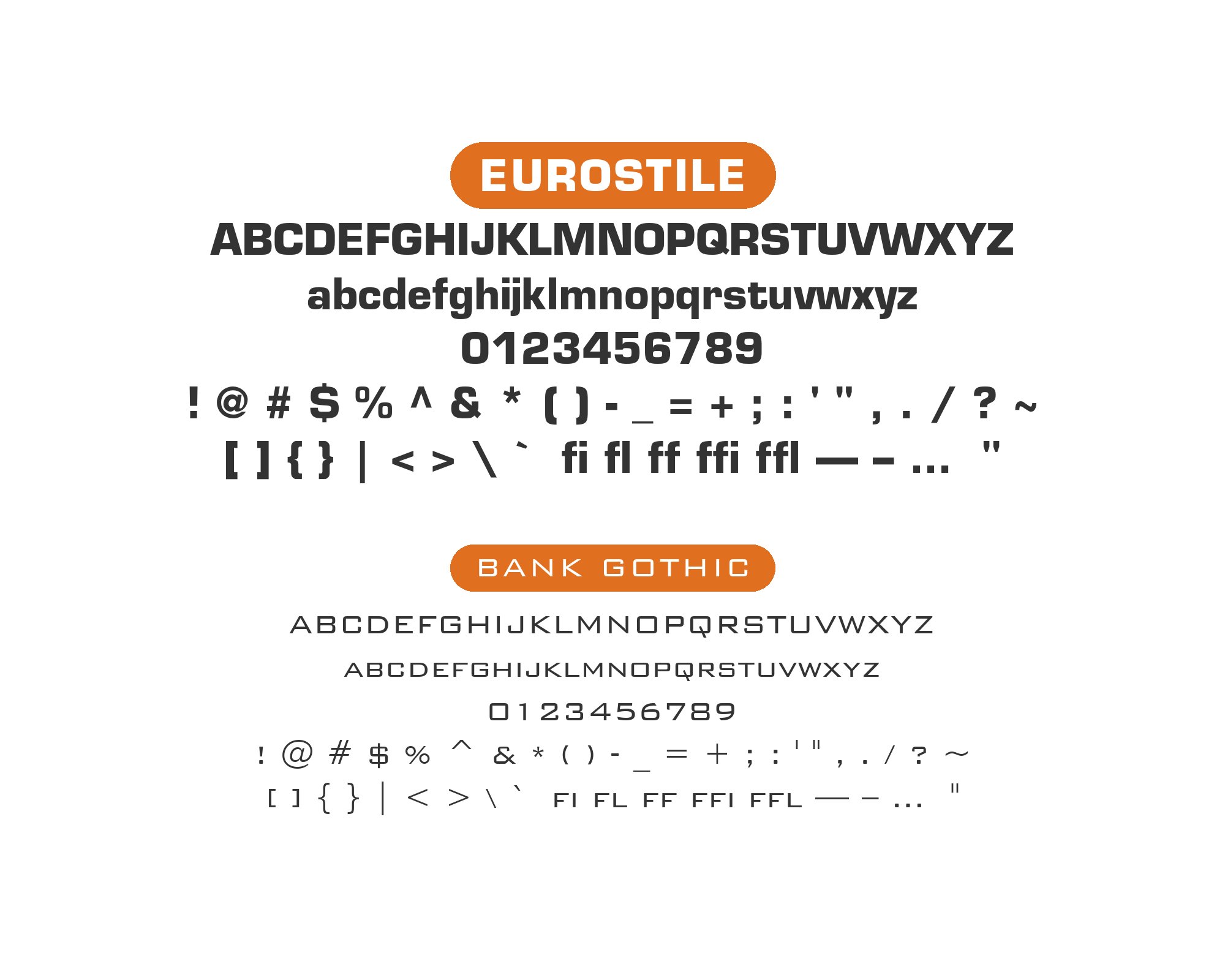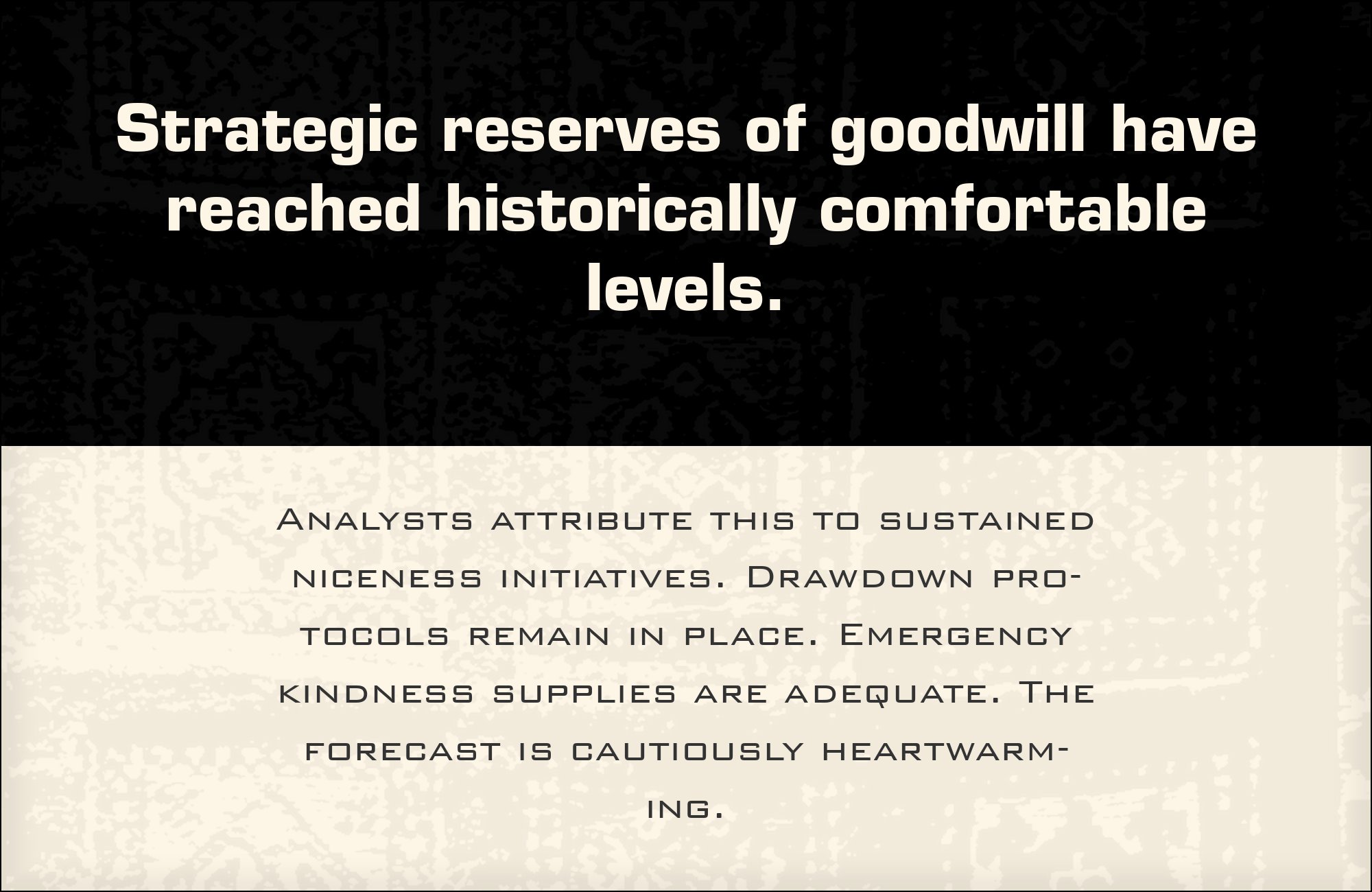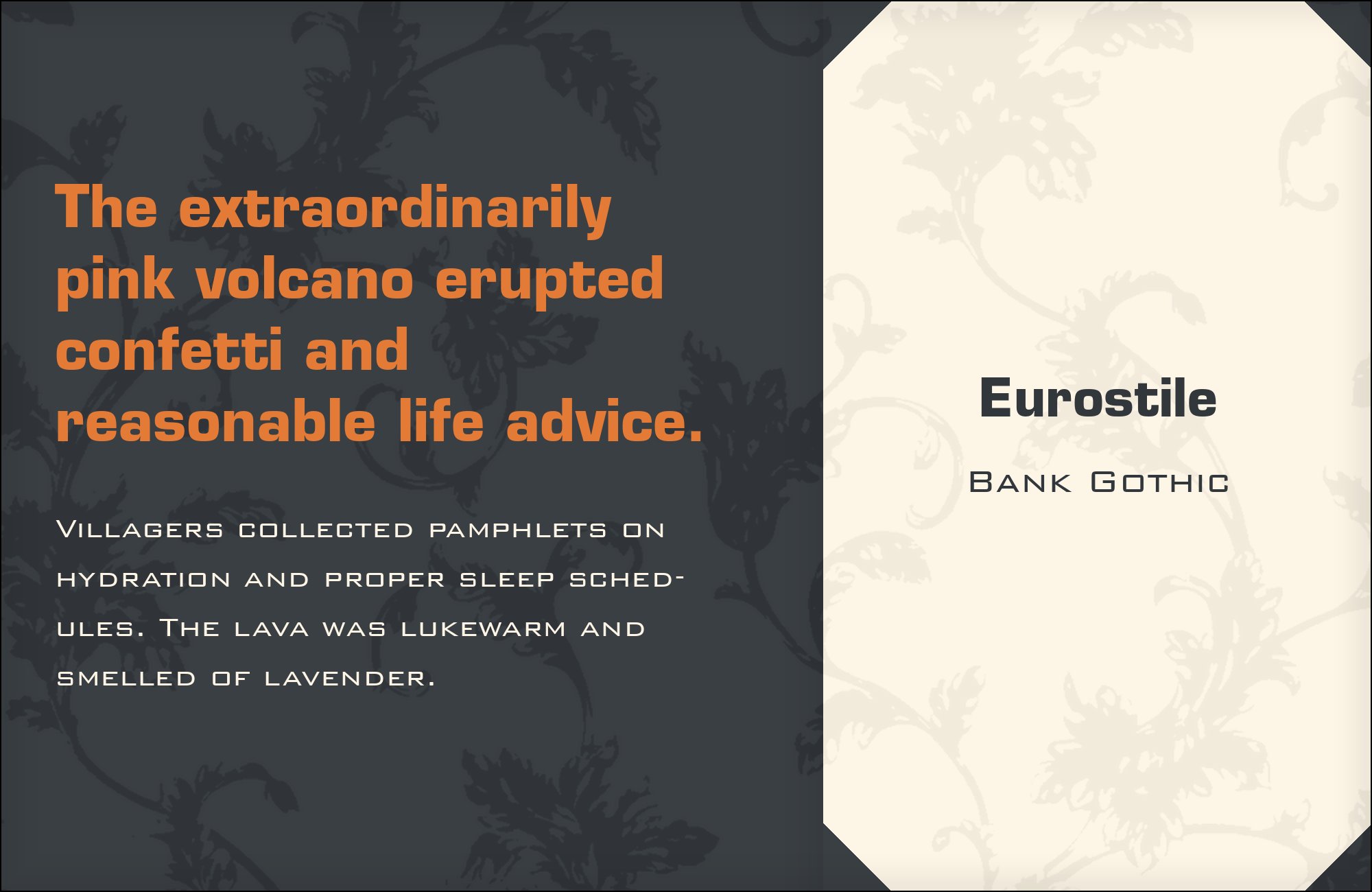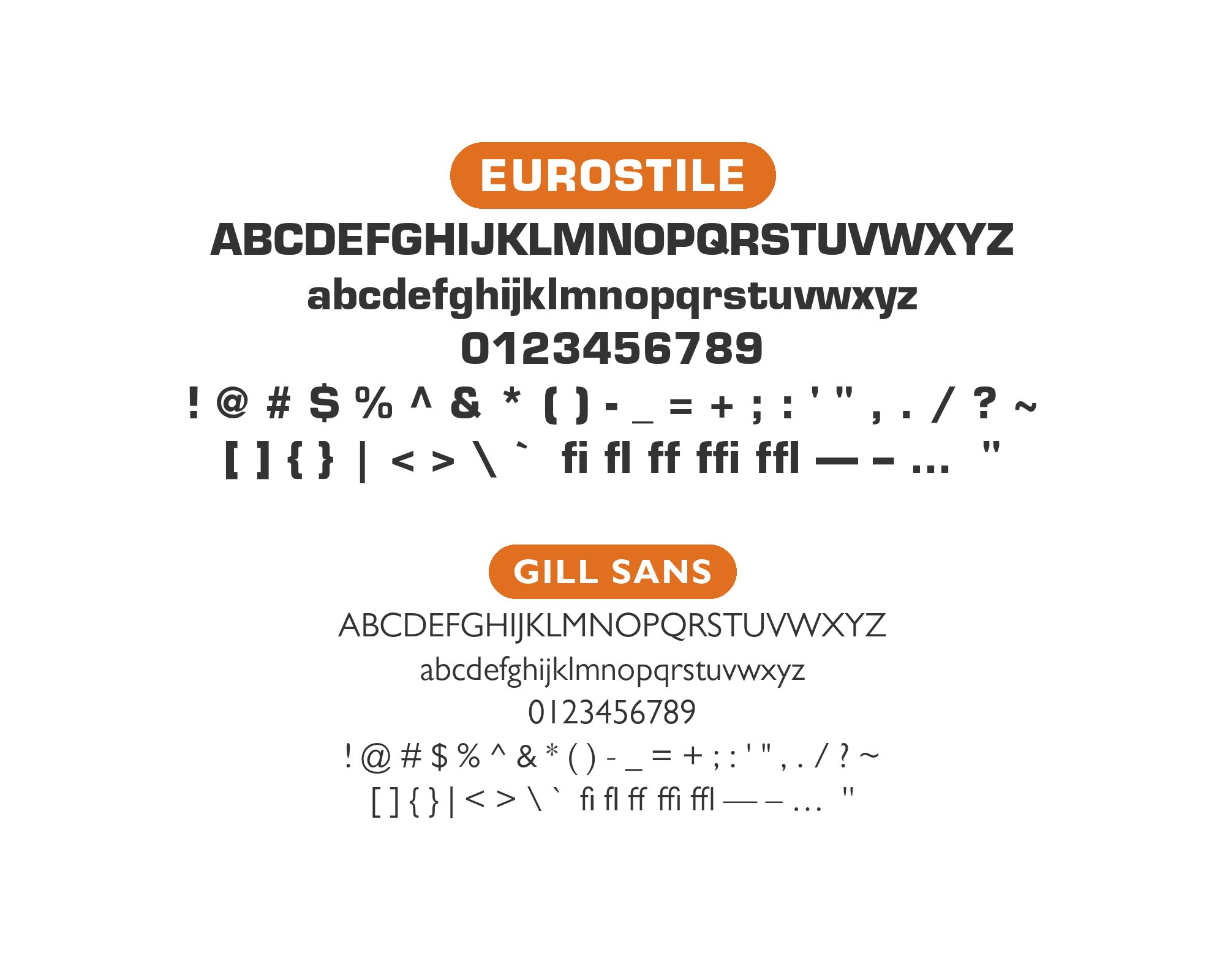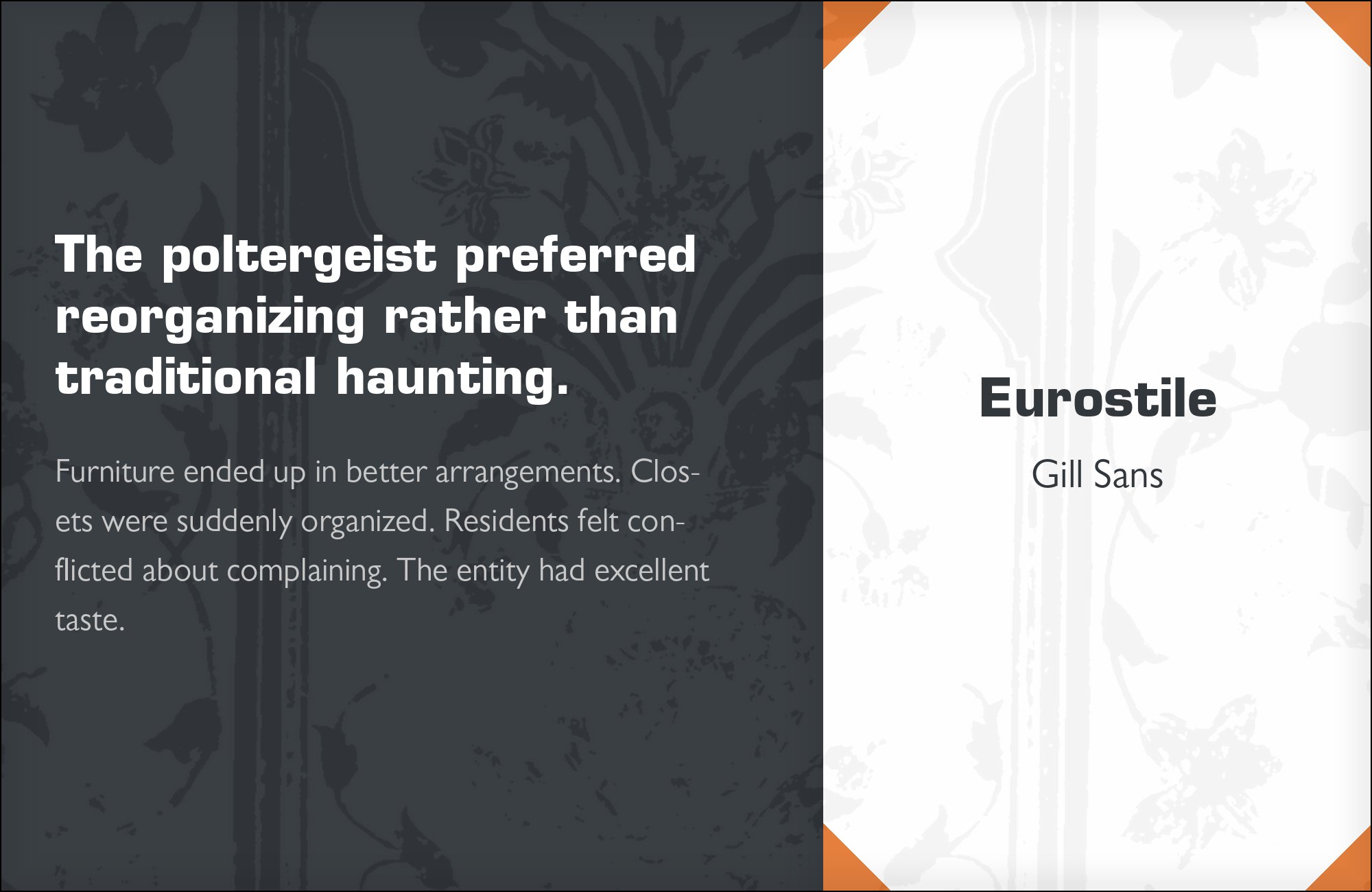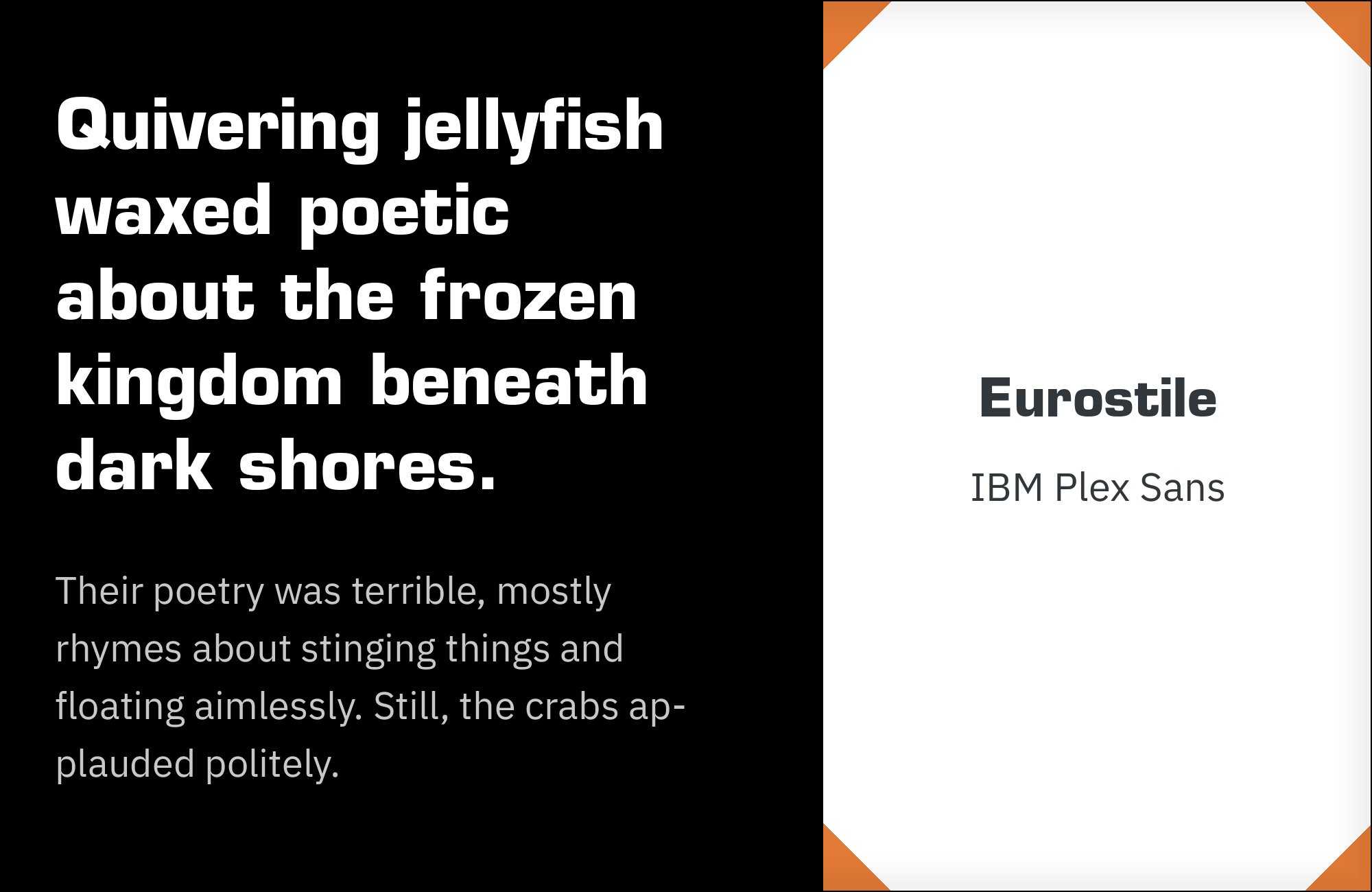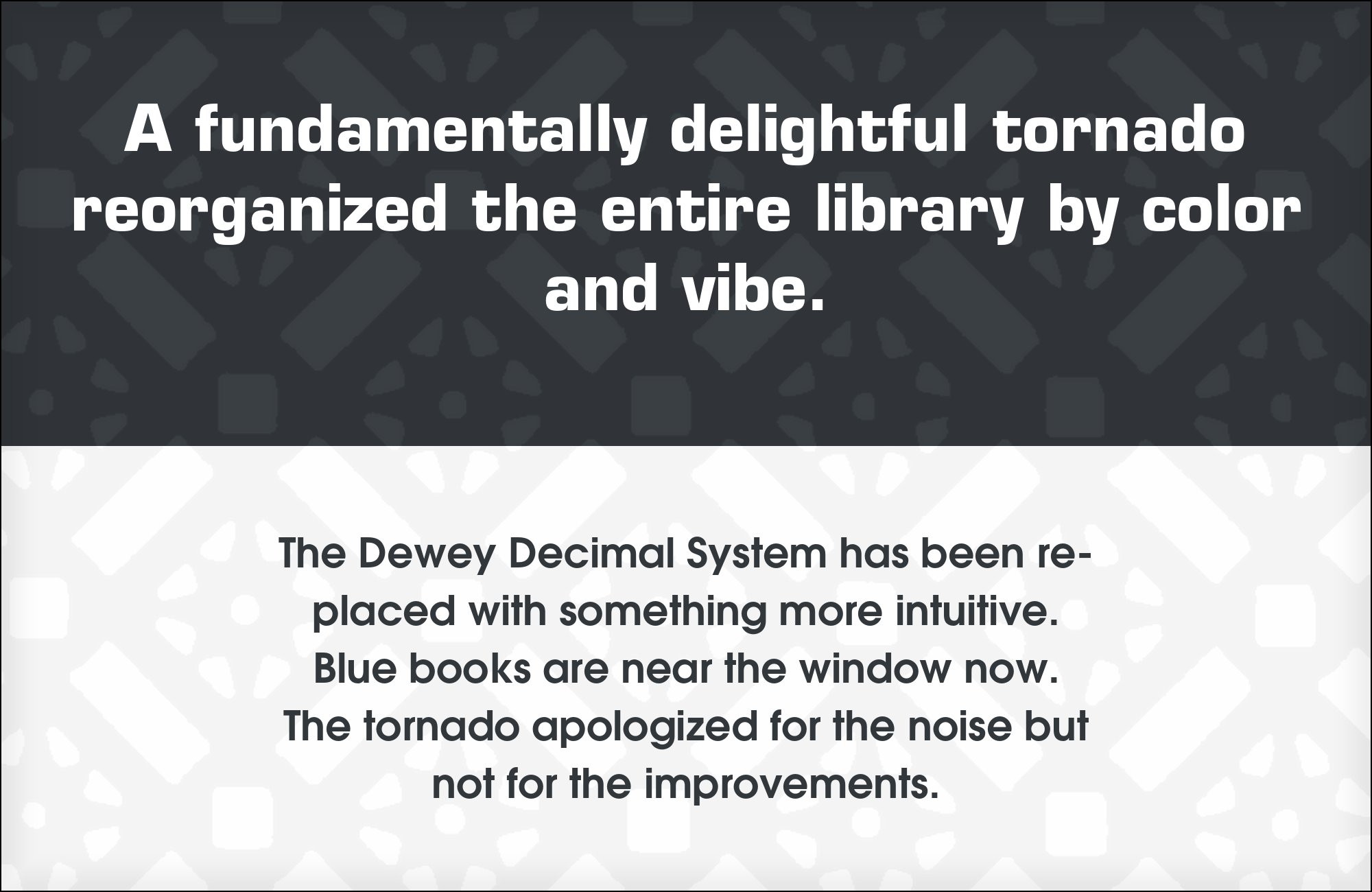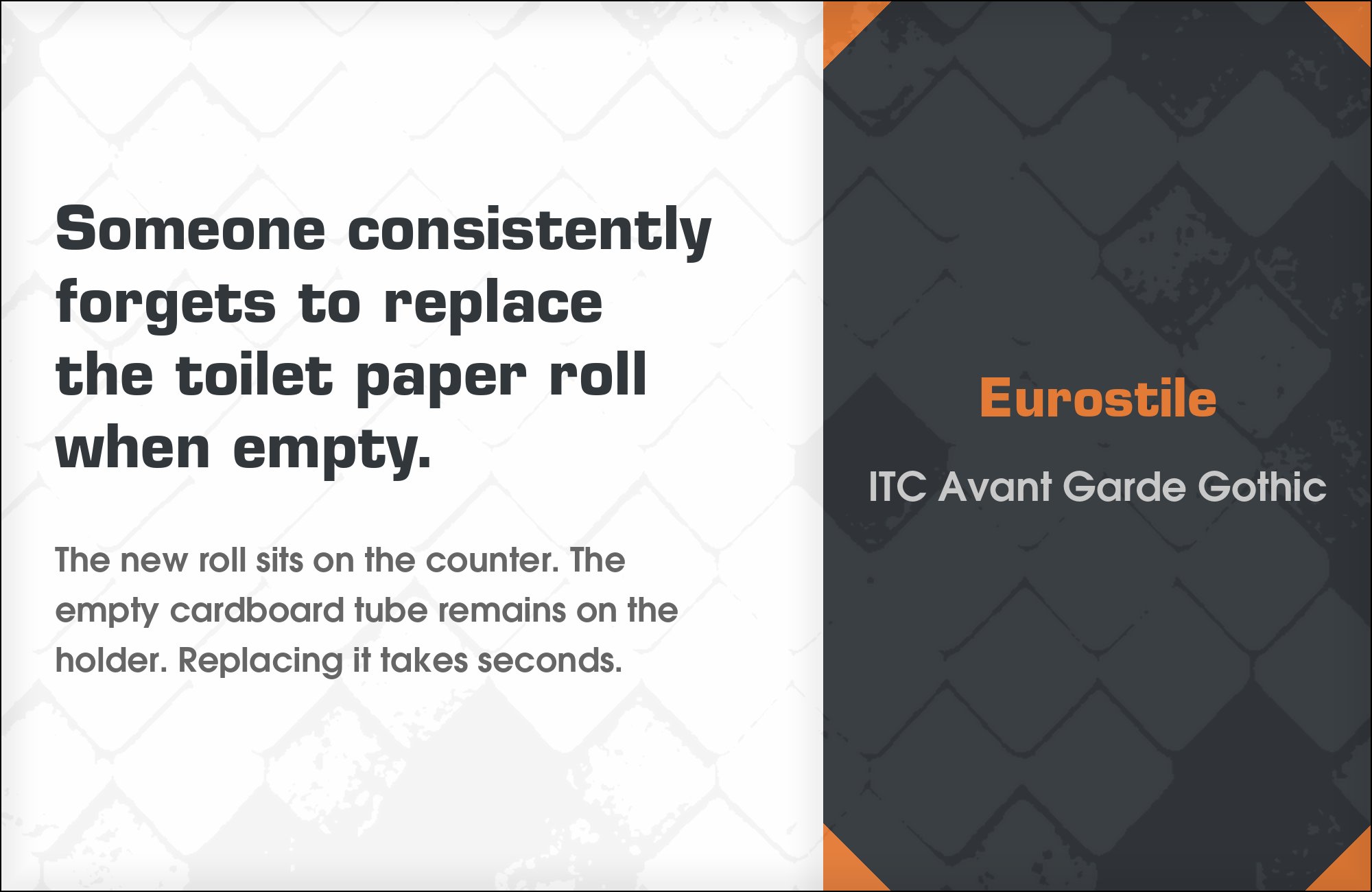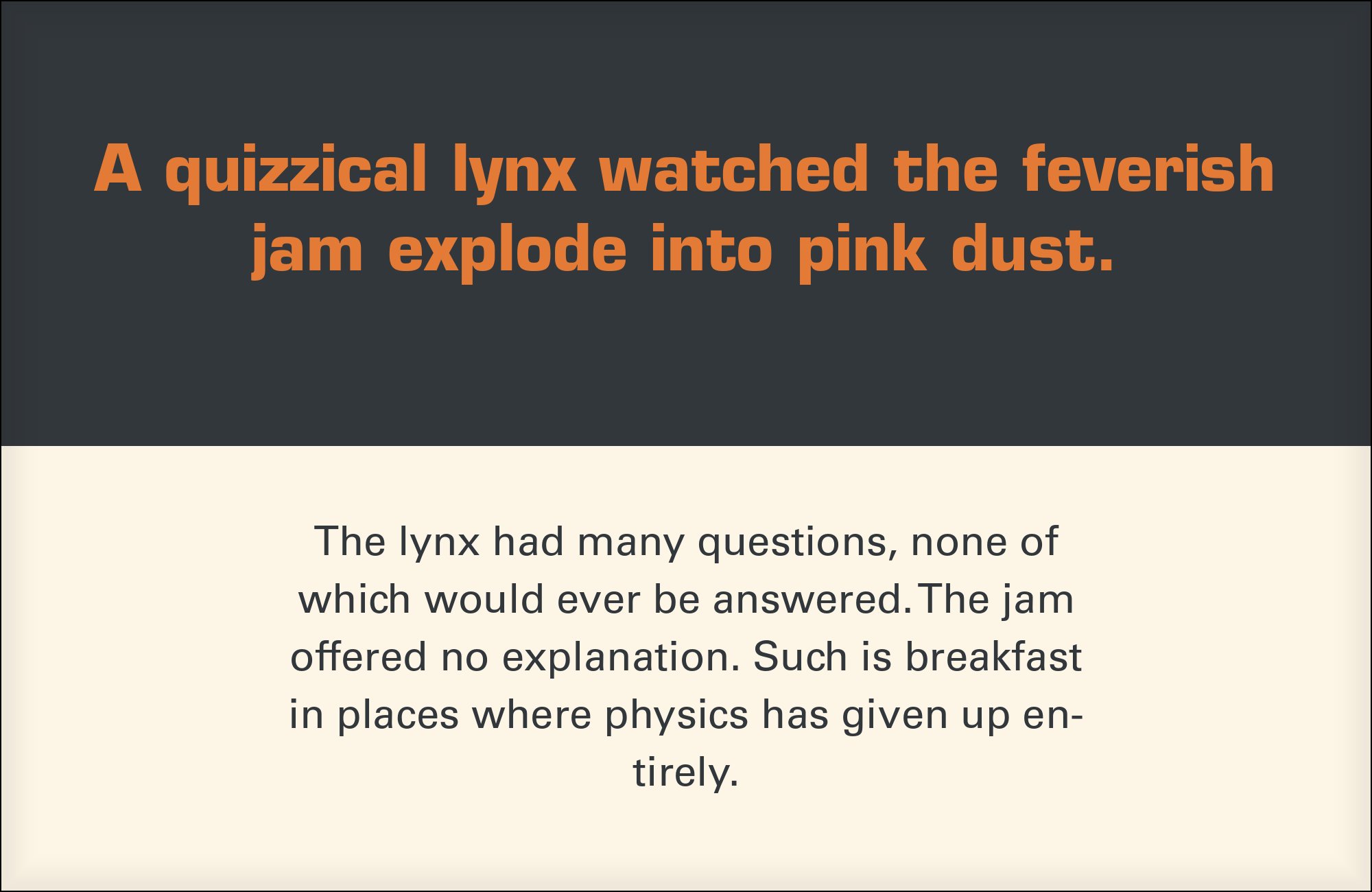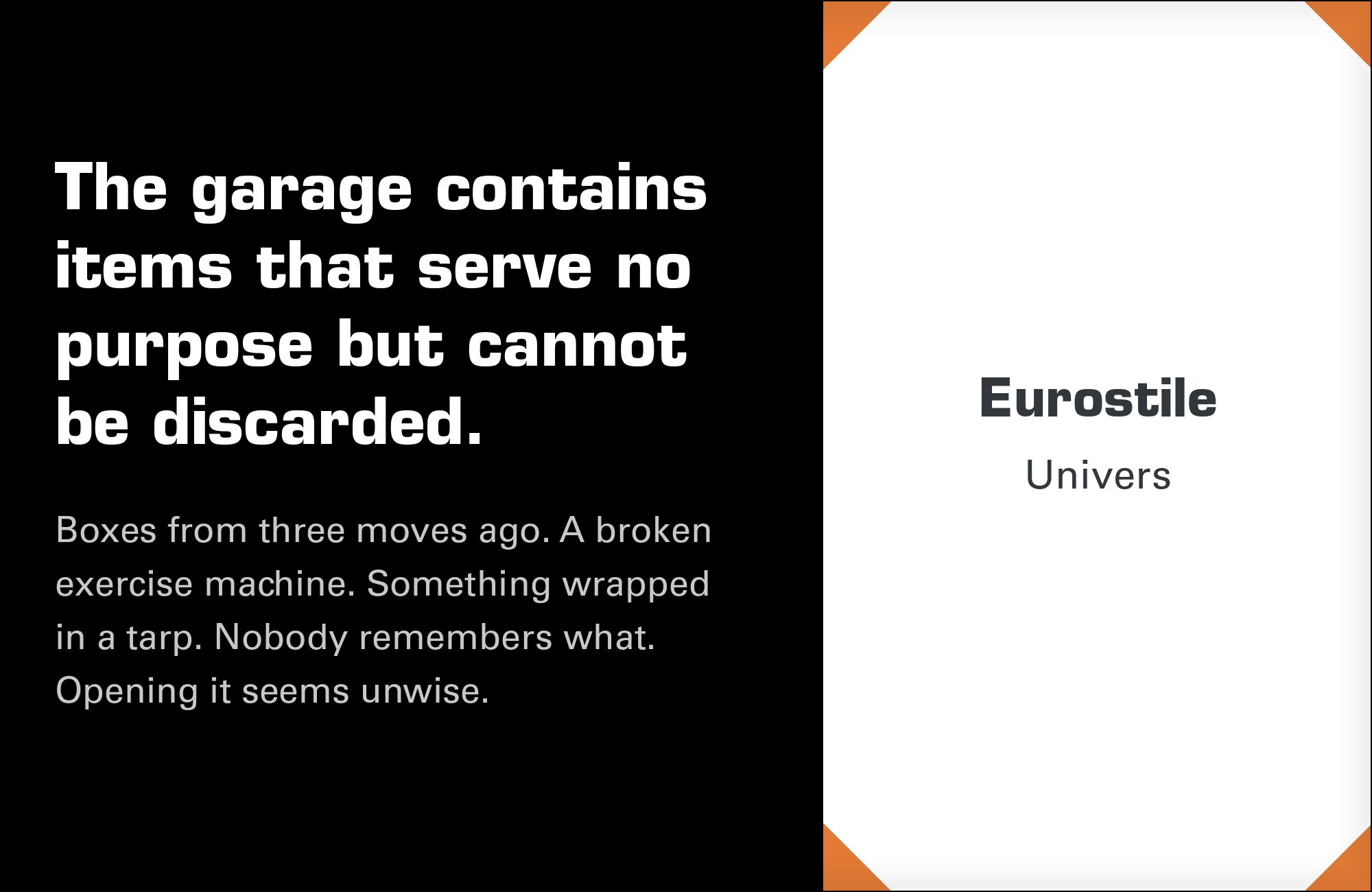
Eurostile pairs great with Univers, Helvetica and Windsor. All 8 pairings are shown below in real rendered specimens, with the reason each one works.
What fonts go with Eurostile? 8 pairings are shown below, each with a reason it works.
Eurostile is a working typeface, not a novelty. These eight pairings give its squared geometry different roles, from a bold headline to a small accent. Use the examples as starting points and judge each combination in your own layout.
1. Univers
Univers is a neutral, rationally-numbered grotesque with almost no personality of its own, so it disappears into body copy and captions while Eurostile’s loud, ruled-square letterforms carry the headline or logotype without competition. (Fonts in Use documents it on the Radiohead OK Computer sleeve and a 1966 Buddy Rich album; Typewolf lists it separately on BREAKER magazine).
Helvetica can sit beneath Eurostile display type in a retro-tech or hardware layout. Fonts in Use documents the combination on Casio watches and the Metra rail logo and timetables. CreativeMarket cites designer Jason Santa Maria’s critique of the two appearing together as an anachronistic movie prop.
3. Windsor
Windsor’s warm curves sit against Eurostile’s cool, squared geometry. The contrast can give packaging or sleeve art a nostalgic counterweight to a futuristic display face. (Typewolf names it as its suggested pairing; Fonts in Use shows the actual combination on a 1968 Joe Tex album sleeve).
4. ITC Avant Garde Gothic
Both are built from the same primitive shapes — true circles and squared forms — so they read as members of one geometric family instead of clashing, with Avant Garde Gothic’s perfectly round O echoing Eurostile’s rounded-corner squares. (used on a 1985 Commodore 128 and a 1974 Big Star album sleeve).
5. Bank Gothic
Bank Gothic is itself a squared, all-caps engineering face, so stacking it with Eurostile doubles down on a hard, militarized, hardware-spec identity rather than softening it — Bank Gothic for small-caps labels and data, Eurostile for the primary lockup, both drawn from the same square-module logic. Seen on a 2003 Tiger Electronics “Now” gadget brand.
6. IBM Plex Sans
Octavio Ojeda chose Eurostile Extended Black for the INTERSPORT Marketing Services logotype. He chose IBM Plex Sans to work alongside Eurostile. The same split can give Eurostile a focused display role while Plex carries quieter copy.
7. Gill Sans
Gill Sans brings humanist warmth rooted in Edward Johnston’s 1916 lettering for the London Underground. A Pate redesign used Eurostile for headlines and Gill Sans for copy. Their contrast can give editorial or academic layouts a layered, considered feel.
8. Vidaloka
Vidaloka’s bracketed serifs and slightly eccentric, old-advertising curves give a layout a literary, old-world texture that plays against Eurostile’s technological squareness — a contrast pairing that reads as “vintage sci-fi paperback” rather than pure hard-tech branding.
There are no absolute rules for font pairing, just principles to guide you. The key is contrast—in weight, in style (serif vs. sans-serif), or in personality. Eurostile is versatile enough to play well with many different typefaces.
Trust your eye, experiment freely, and remember that the best pairing is the one that serves your content and audience. Typography should enhance communication, not complicate it.